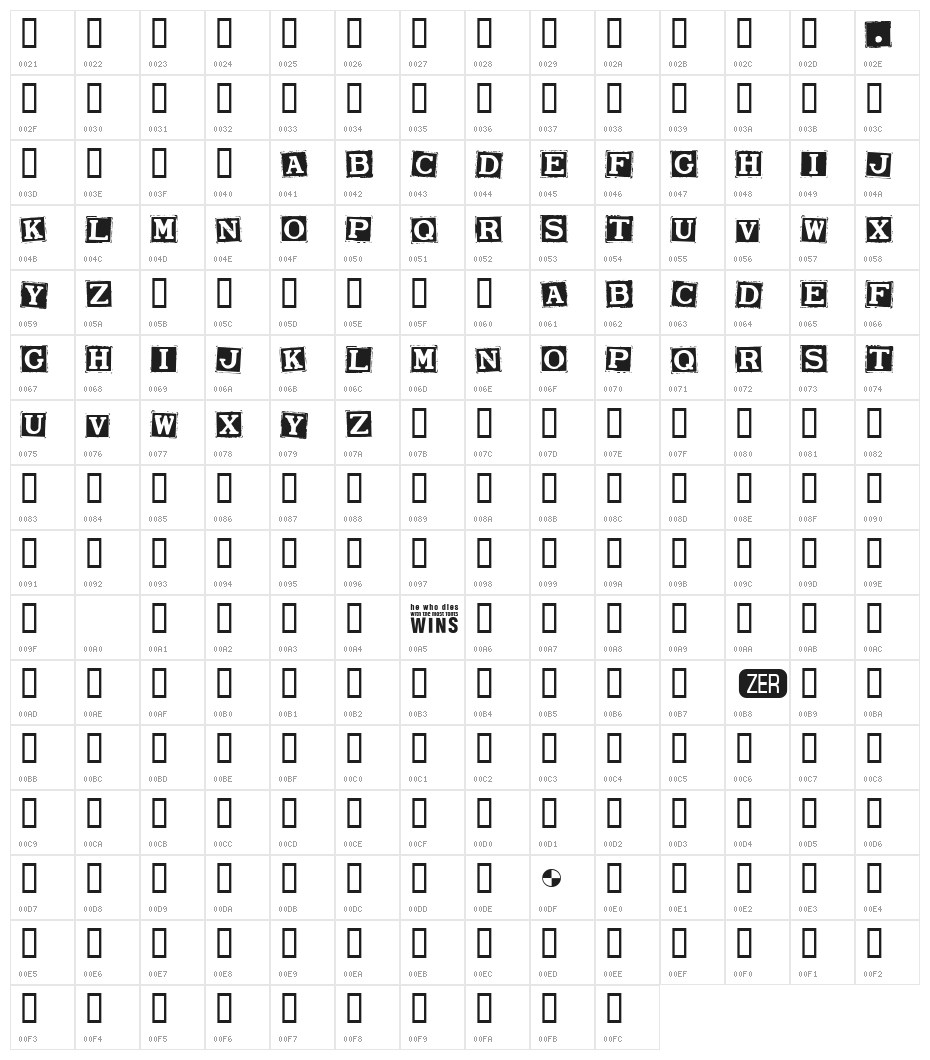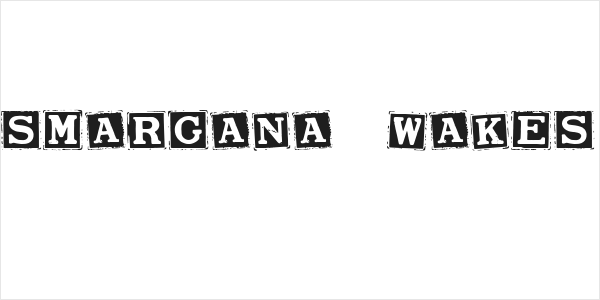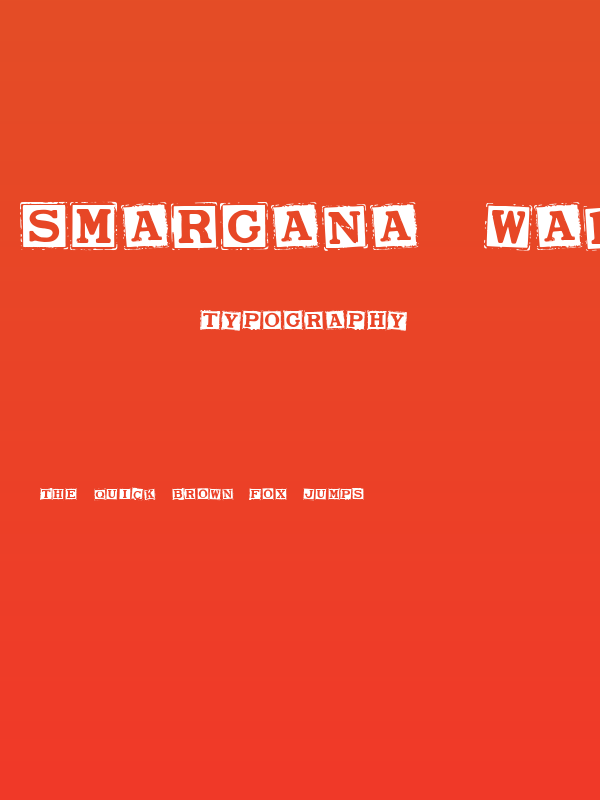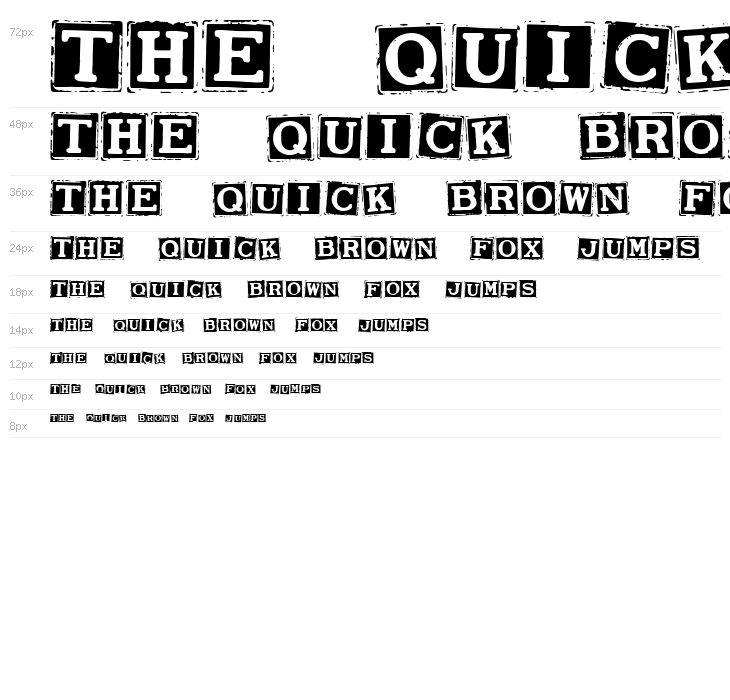
Smargana Wakes Font
Smargana Wakes Description
This font features a bold, distressed style with each character enclosed in a rough, square border. The letters have a vintage, grunge aesthetic, giving them a worn and textured appearance. The uppercase and lowercase characters maintain a consistent style, with the uppercase being slightly larger and more pronounced. The numbers and special characters follow the same design, ensuring uniformity across the font. The overall look is reminiscent of old typewriter keys or stamped lettering, making it ideal for projects that require a rugged, retro feel.
| Proposed Projects | Ideal for posters, album covers, branding for vintage-themed products, or any design needing a rugged, retro look. |